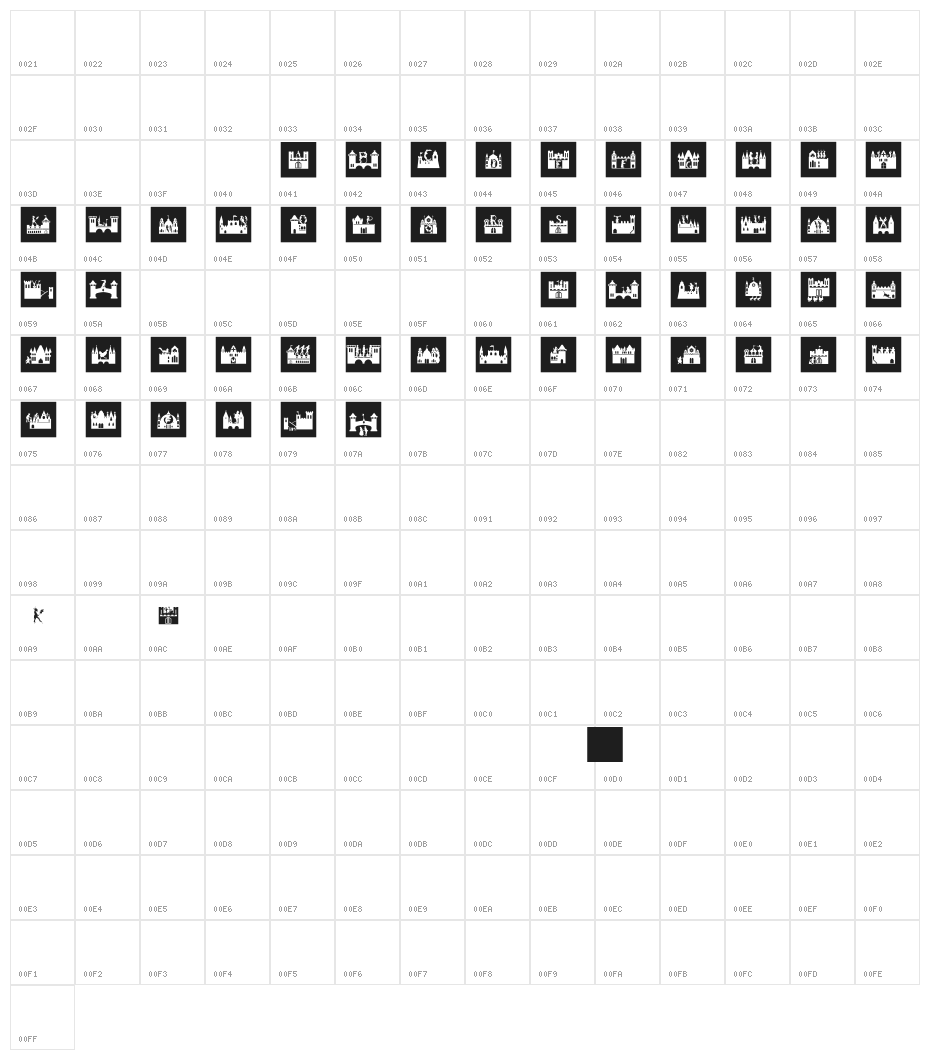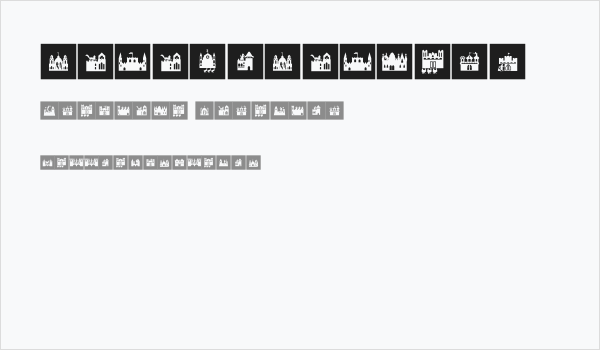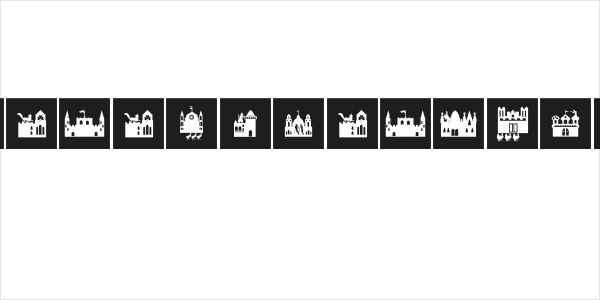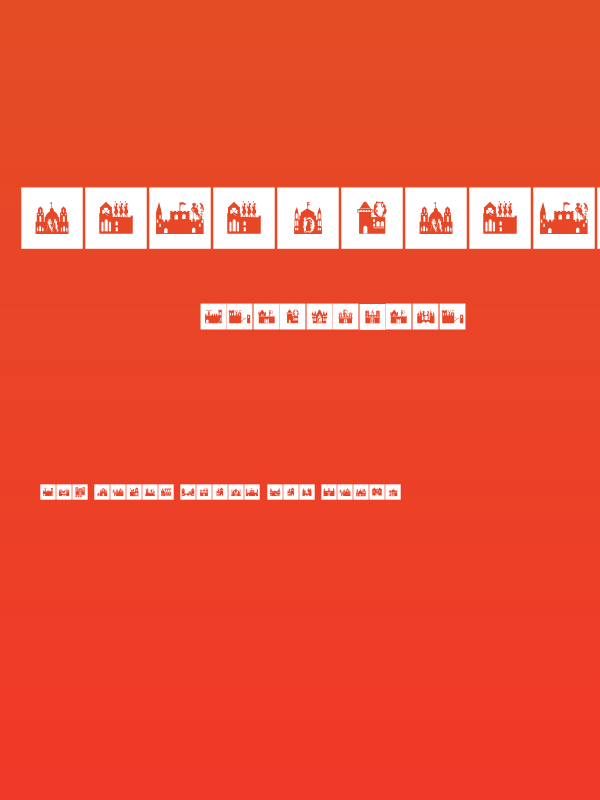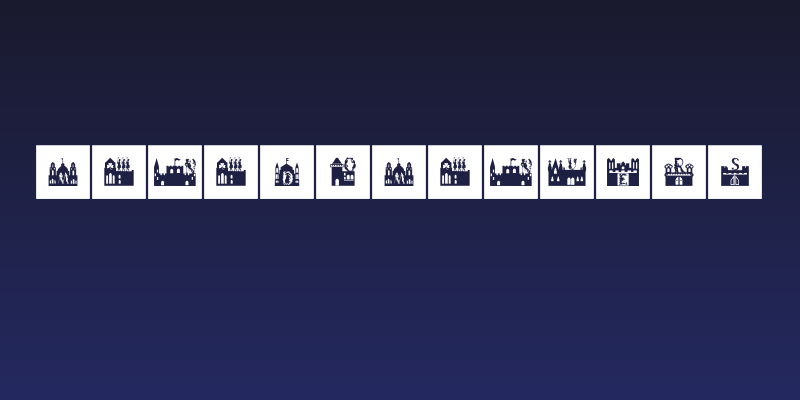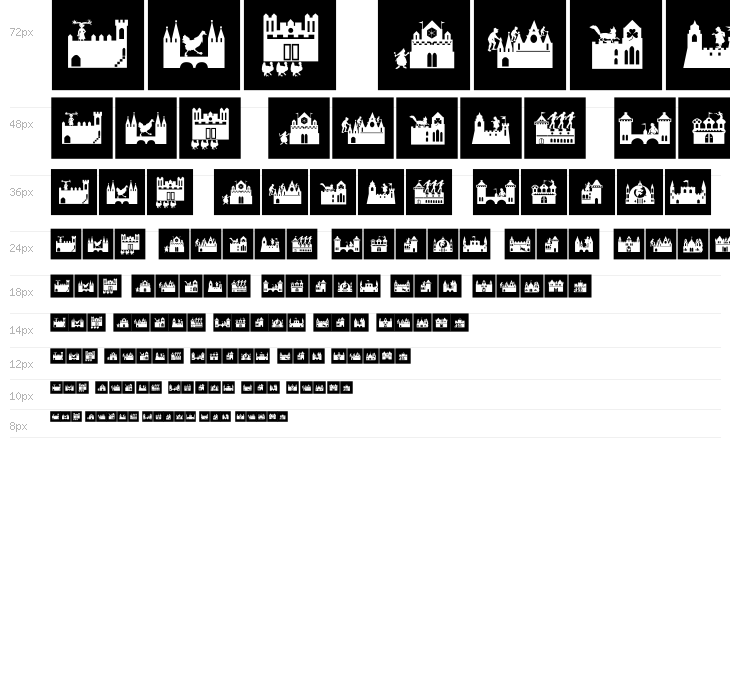
MinidoMinvers Font
MinidoMinvers Description
A decorative display font where each character is represented by a detailed silhouette of a unique building or castle, rendered in high-contrast black and white. The glyphs are highly illustrative, with each letter or symbol taking the form of an architectural structure, making the set visually engaging and thematic.
| Overall Style | Decorative, Whimsical, Thematic |
| Use Case | Logos, Headlines, Posters, Themed graphics |
| Proposed Projects | Posters, themed invitations, children's books, fantasy game titles, event branding, decorative headings. |